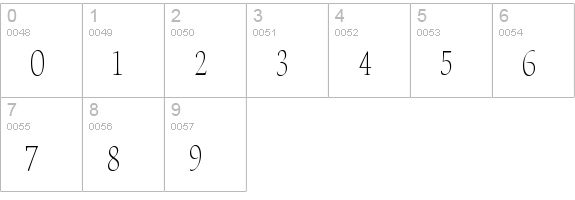
Waters Titling Pro Light Condensed Font Details
Waters Titling Pro Light Condensed is a refined, elegant, condensed-width variant in the Waters typeface family \xE2\x80\x94 well suited to elegant body text, refined sub-headings, and luxury branding.
Introducing Waters Titling Pro Light Condensed, a stunning font that exudes elegance and sophistication. This font is perfect for those looking to add a touch of refined beauty to their designs. With its sleek and slender letterforms, Waters Titling Pro Light Condensed captures attention effortlessly, making any project stand out from the crowd. But what sets Waters Titling Pro Light Condensed apart is not just its impeccable design, it's also the fact that it is available for free! That's right, this extraordinary font can be freely downloaded at FontsMarket.com, giving you the opportunity to enhance your creations without any extra cost. Whether you're designing a logo, creating stunning headlines, or crafting eye-catching posters, Waters Titling Pro Light Condensed is the ideal choice. Its clean and precise lines ensure readability, while its condensed nature adds a sense of modernity and sophistication to any layout. With its extensive character set, Waters Titling Pro Light Condensed offers versatility and flexibility, allowing you to explore various design possibilities. From elegant typographic compositions to sleek and minimalist designs, this font adapts effortlessly to any creative vision. The attention to detail in Waters Titling Pro Light Condensed is second to none. Each letter has been meticulously crafted to ensure a harmonious balance between form and function. The result is a font that not only looks stunning but also performs flawlessly across different media and platforms. So, if you're searching for a font that combines beauty, versatility, and affordability, look no further than Waters Titling Pro Light Condensed. Available for free download at FontsMarket.com, this font is a must-have for designers, typographers, and creatives alike. Elevate your designs to new heights with Waters Titling Pro Light Condensed and make your creations truly unforgettable.